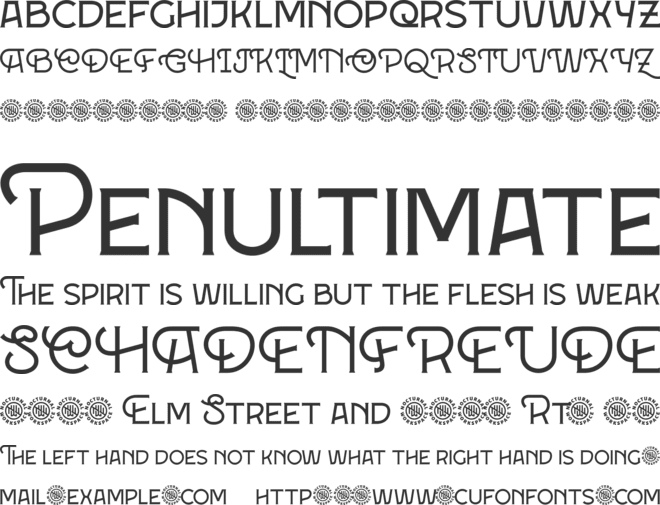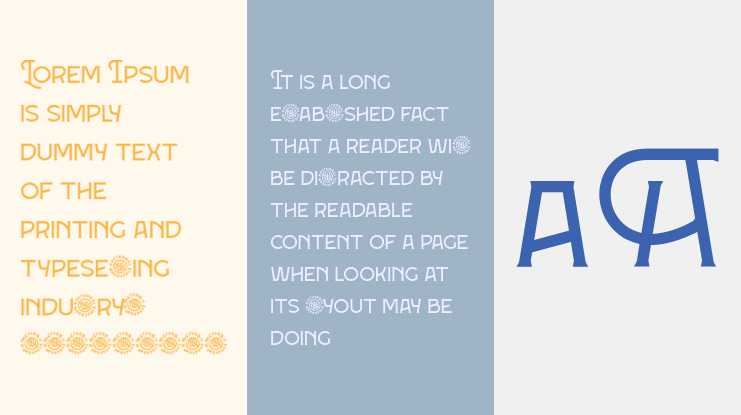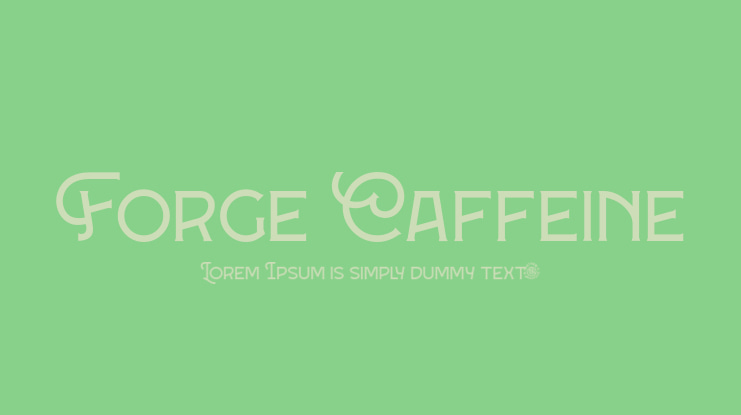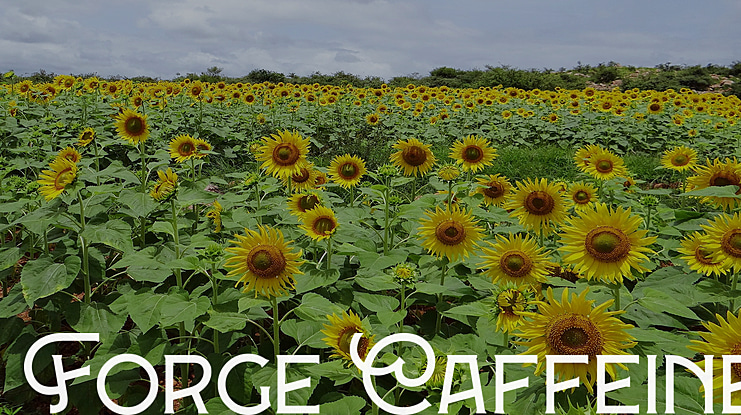
Forge Caffeine Font
This font is retro, fun, and playful. It really ties together your piece to make it feel retro. Perfect for making any project like header, quote, layout magazine, and others. Even better if used on the 60s and 70s design projects.